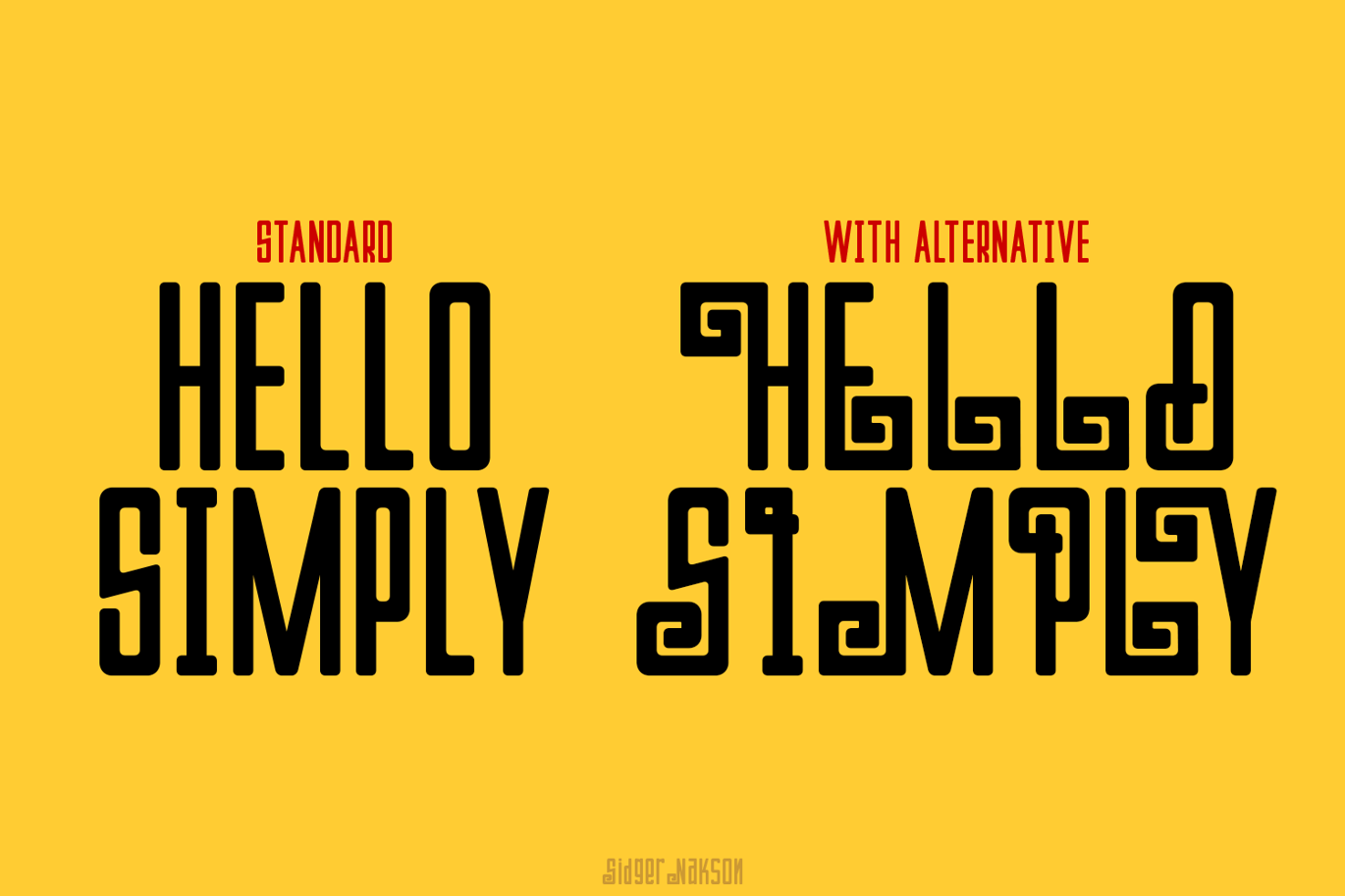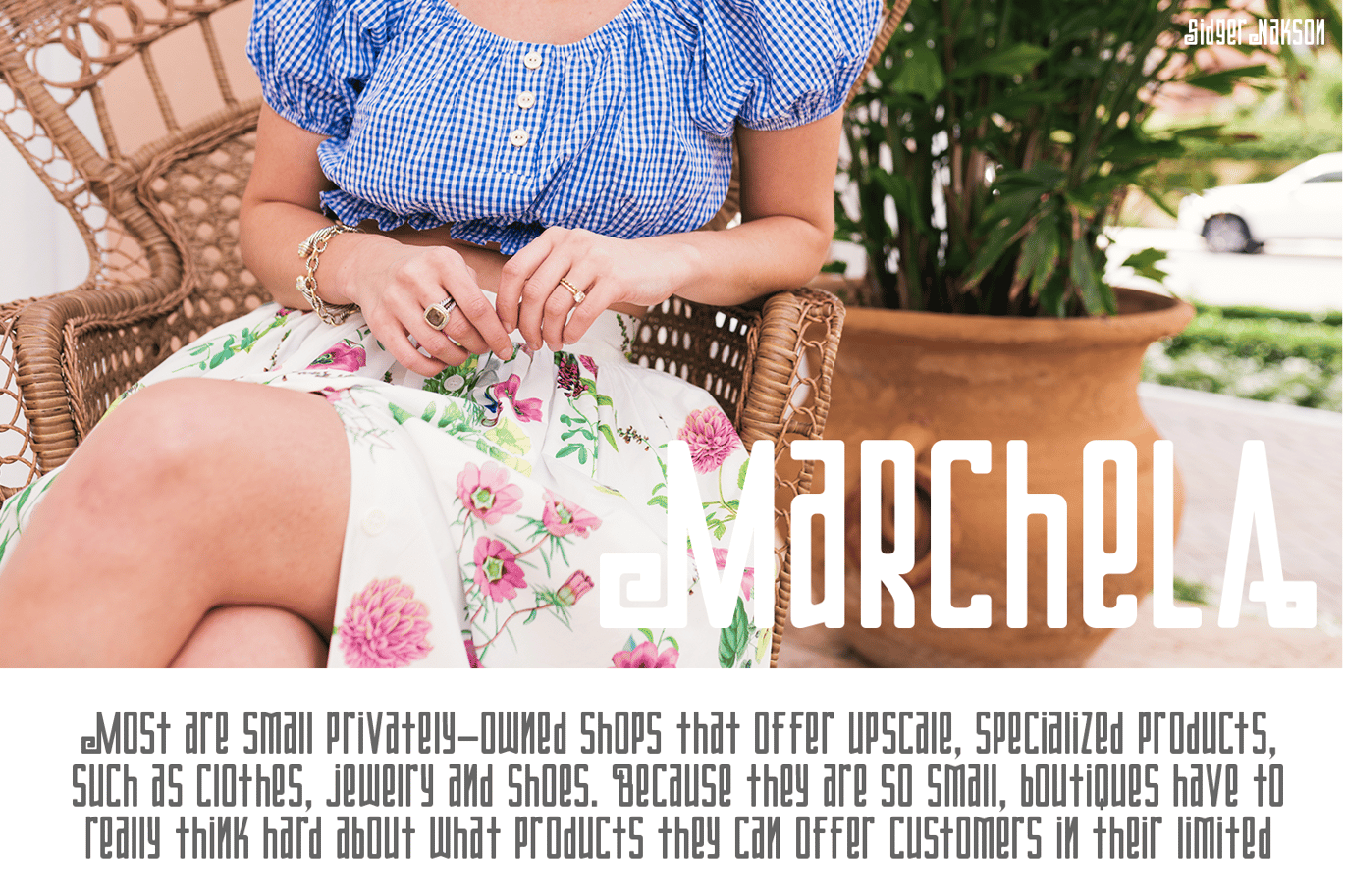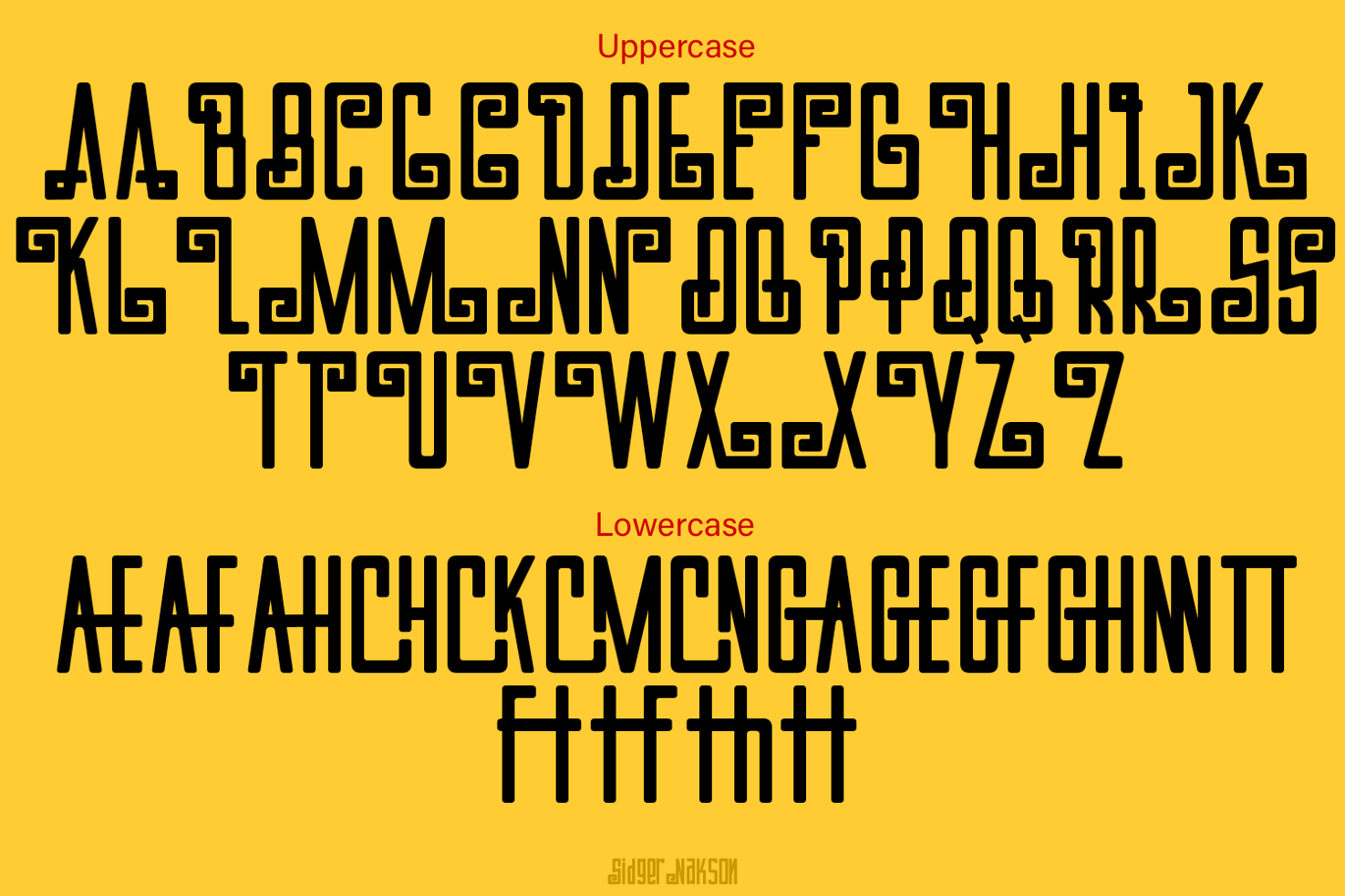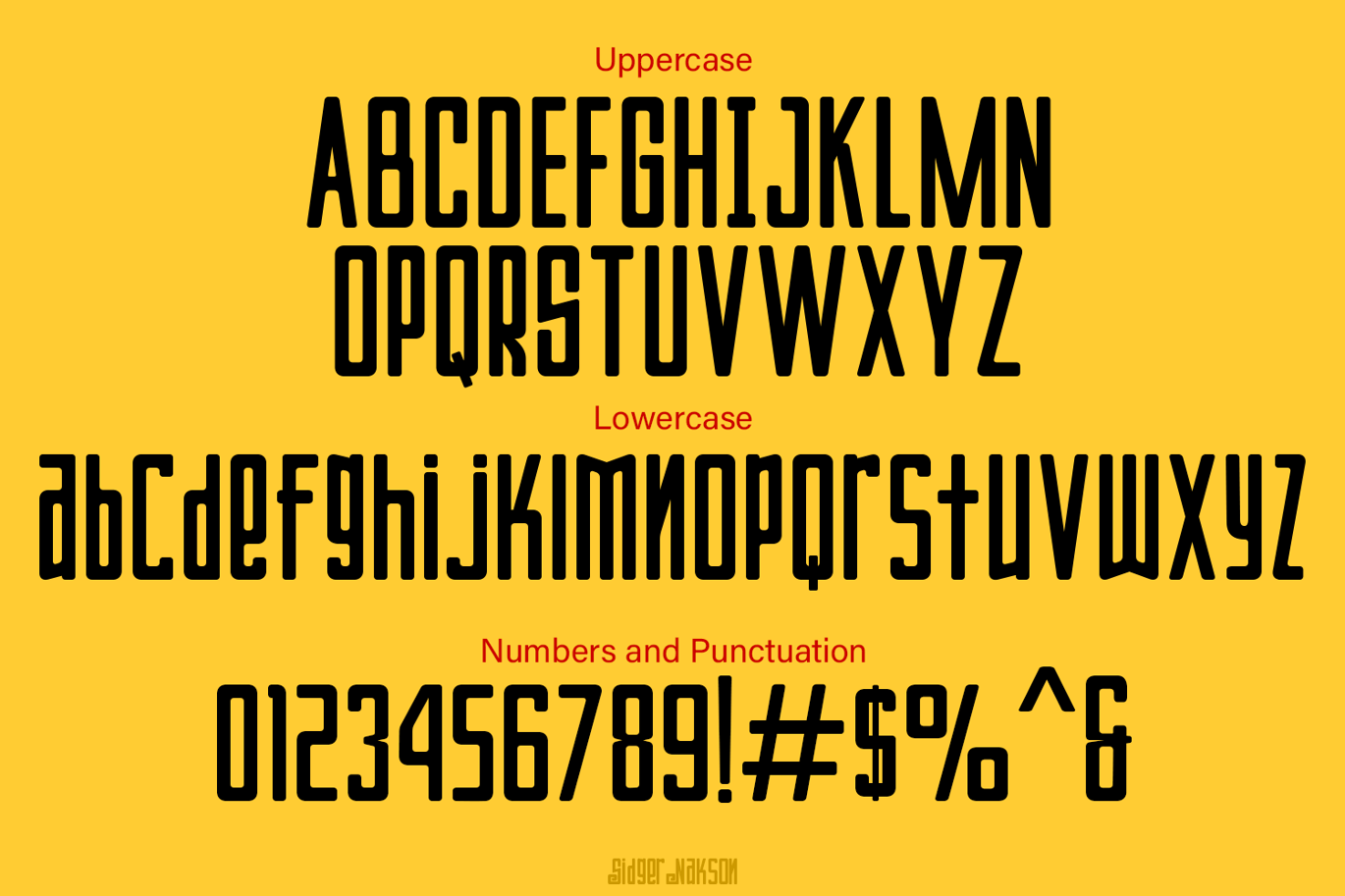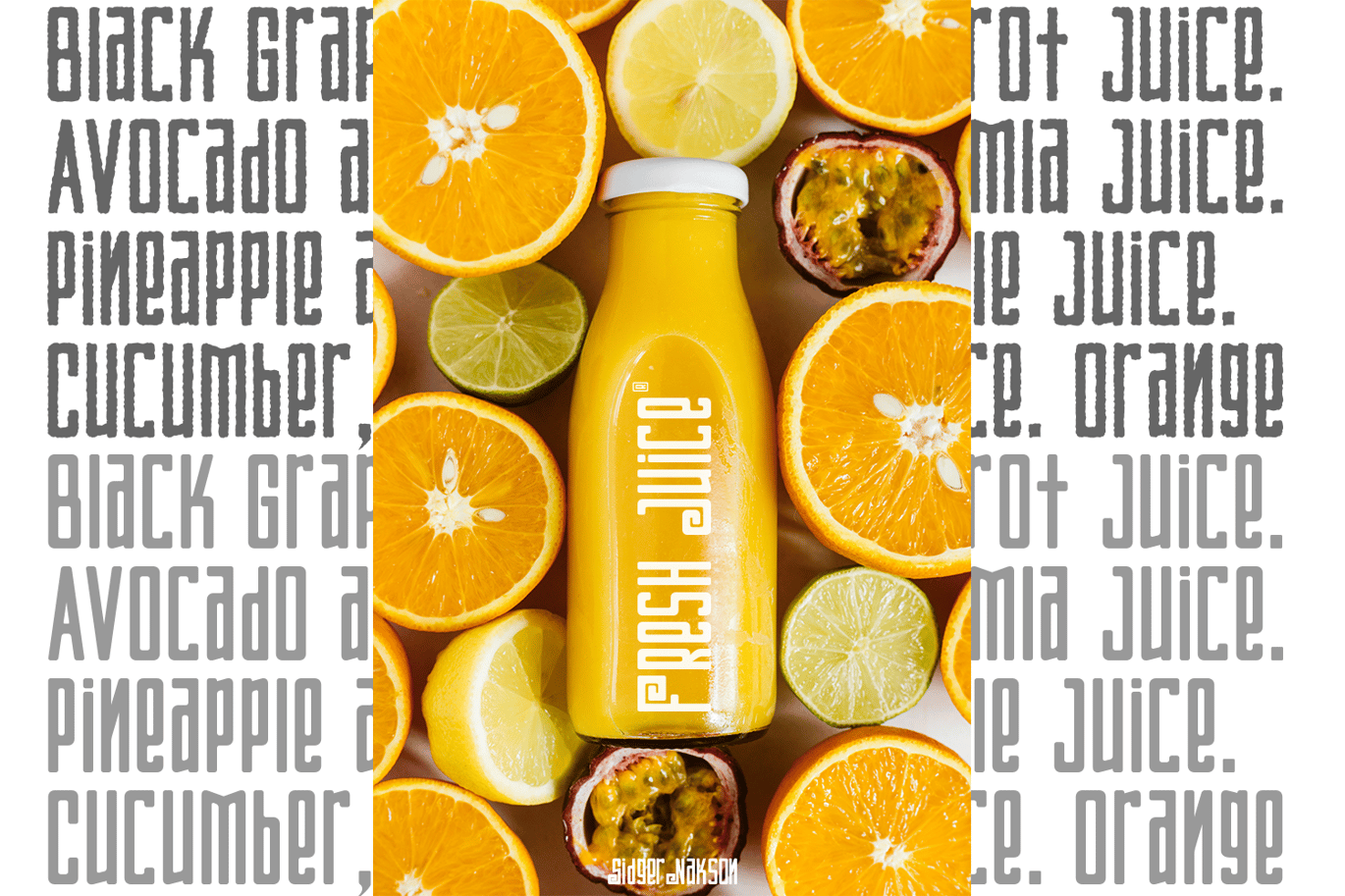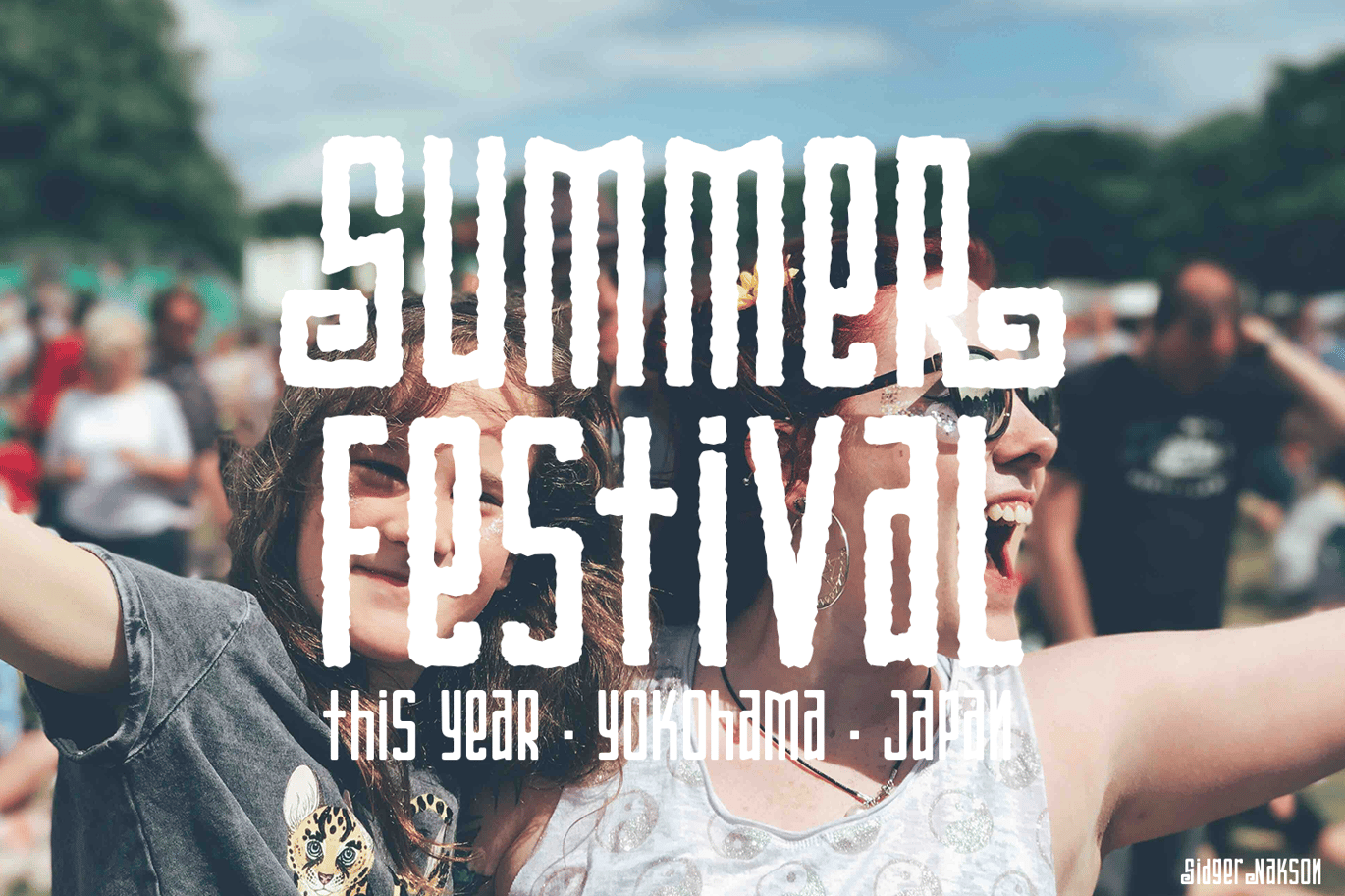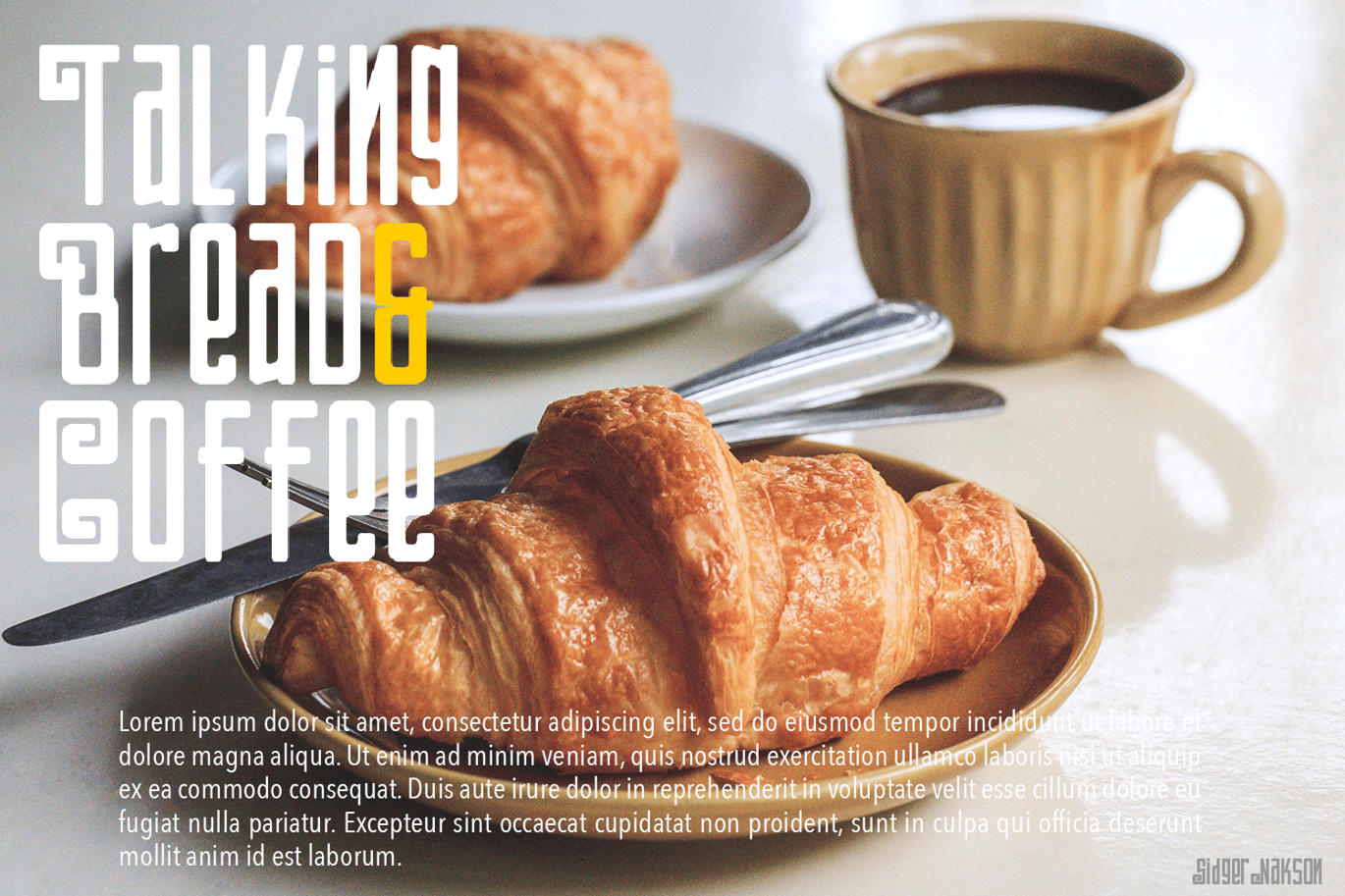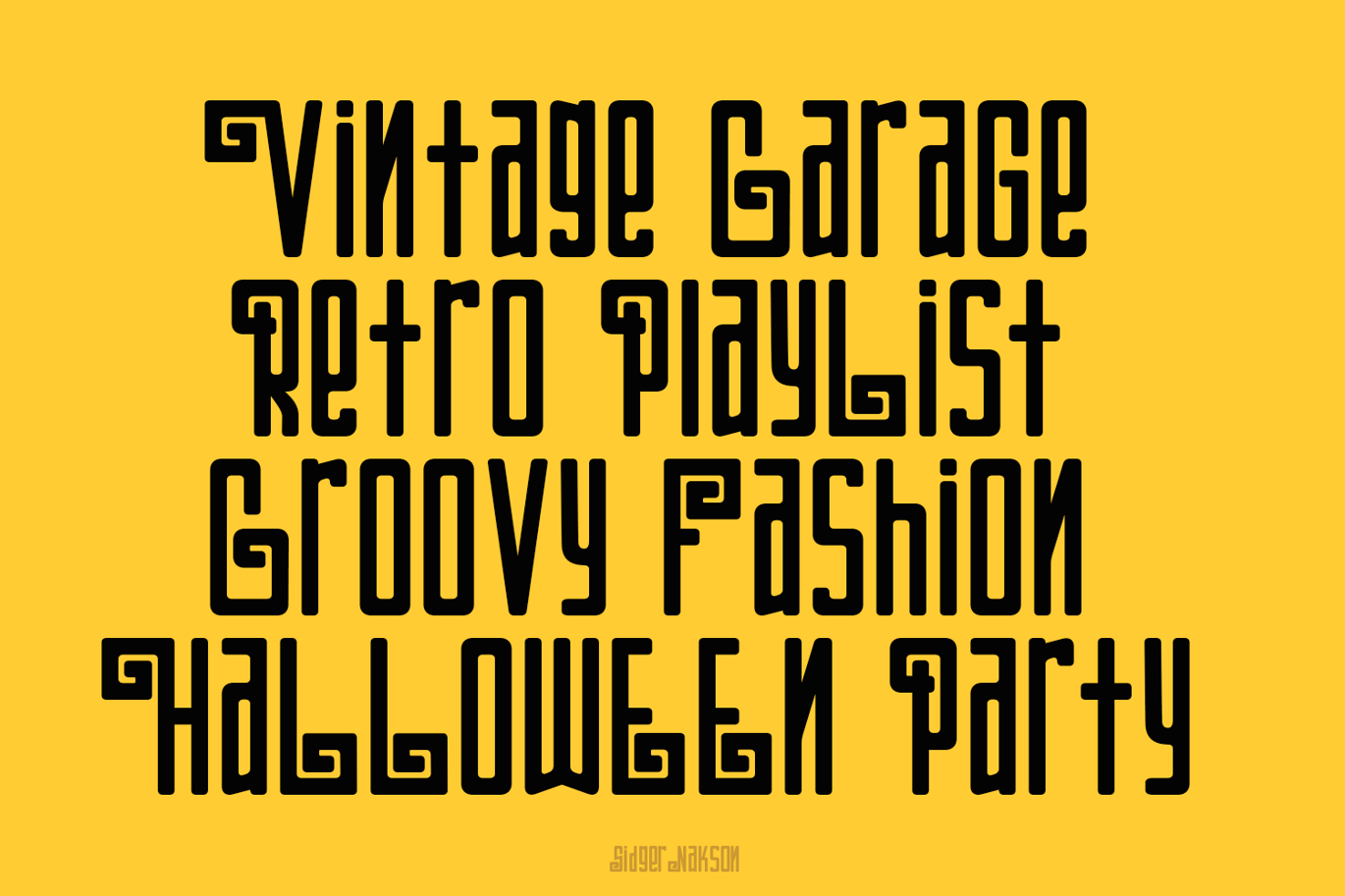
Sidger Nakson – Curly Font
Sidger Nakson is a display font regular and rough curly style with much alternative and ligature. Its clean and geometric letterforms make it ideal for various design applications, from corporate branding to editorial layouts.